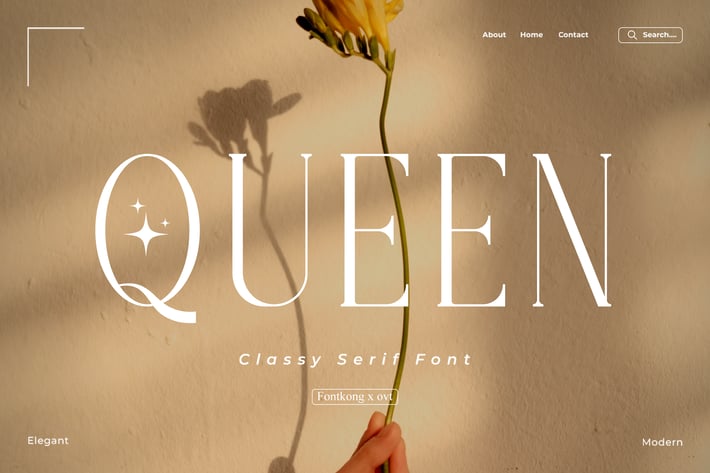
Queen - Classy Serif Font
Introducing "Queen," a classy serif font that exudes regal elegance and timeless sophistication. Perfect for designers, typographers, and creatives seeking to add a touch of refinement to their projects, Queen offers a graceful and versatile typeface that commands attention with its majestic charm.
Ideal for branding, editorial layouts, logos, packaging, and invitations, Queen’s distinguished serifs and balanced proportions provide a professional and luxurious aesthetic. Each letter is meticulously crafted to ensure readability and visual appeal, making your designs both elegant and impactful.
The "Queen" font includes a complete set of uppercase and lowercase letters, numbers, punctuation marks, and special characters. This comprehensive set ensures seamless integration into various design projects, from chic branding to elegant editorial content.
Elevate your designs with Queen, the classy serif font fit for royalty.
Introducing "Queen," a classy serif font that exudes regal elegance and timeless sophistication. Perfect for designers, typographers, and creatives seeking to add a touch of refinement to their projects, Queen offers a graceful and versatile typeface that commands attention with its majestic charm.
Ideal for branding, editorial layouts, logos, packaging, and invitations, Queen’s distinguished serifs and balanced proportions provide a professional and luxurious aesthetic. Each letter is meticulously crafted to ensure readability and visual appeal, making your designs both elegant and impactful.
The "Queen" font includes a complete set of uppercase and lowercase letters, numbers, punctuation marks, and special characters. This comprehensive set ensures seamless integration into various design projects, from chic branding to elegant editorial content.
Elevate your designs with Queen, the classy serif font fit for royalty.